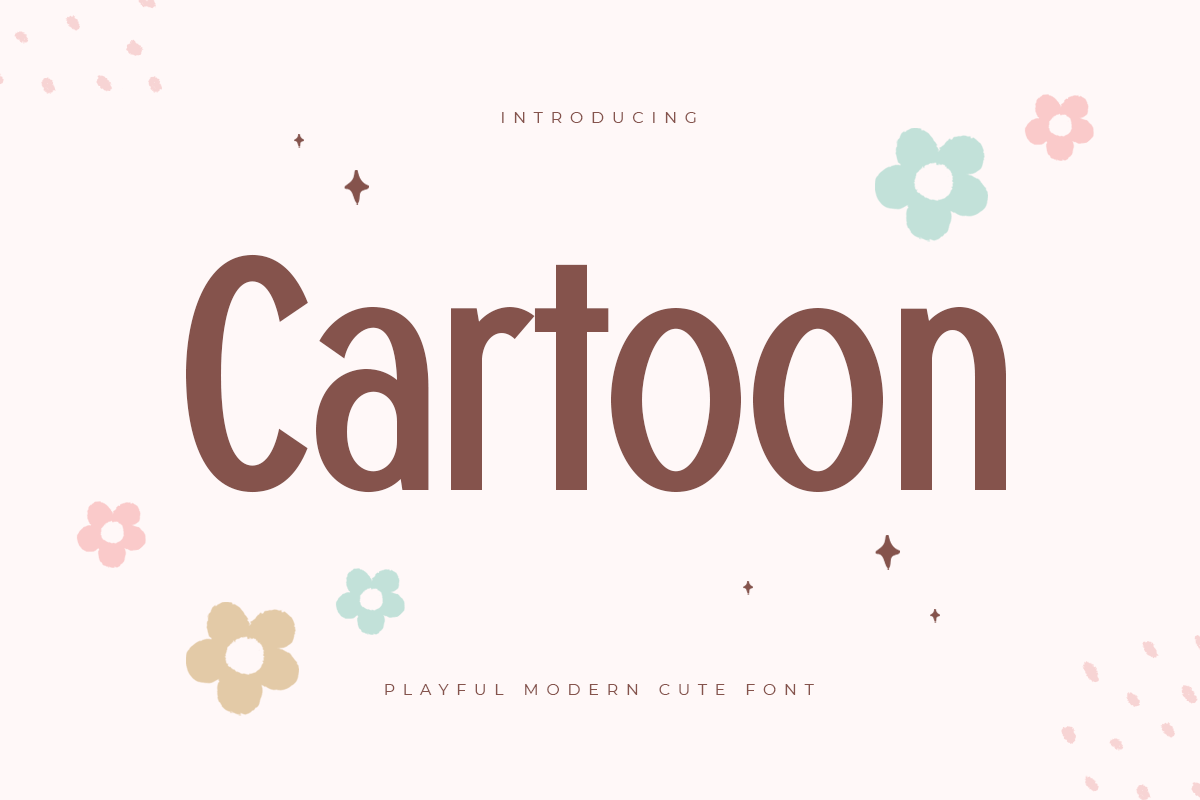
Cartoon
-Playful Modern Cute Font
Cartoon is a fun and playful cute typeface. It is perfect for logotype, flyer, greeting cards, packaging, book cover, printed quotes, headings, etc.